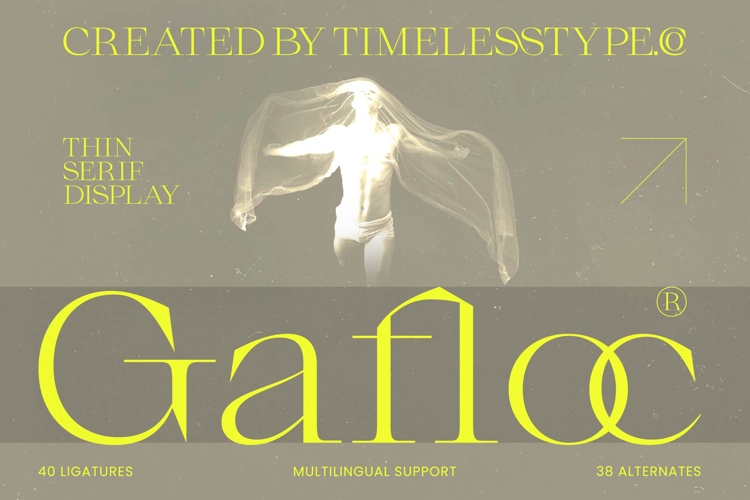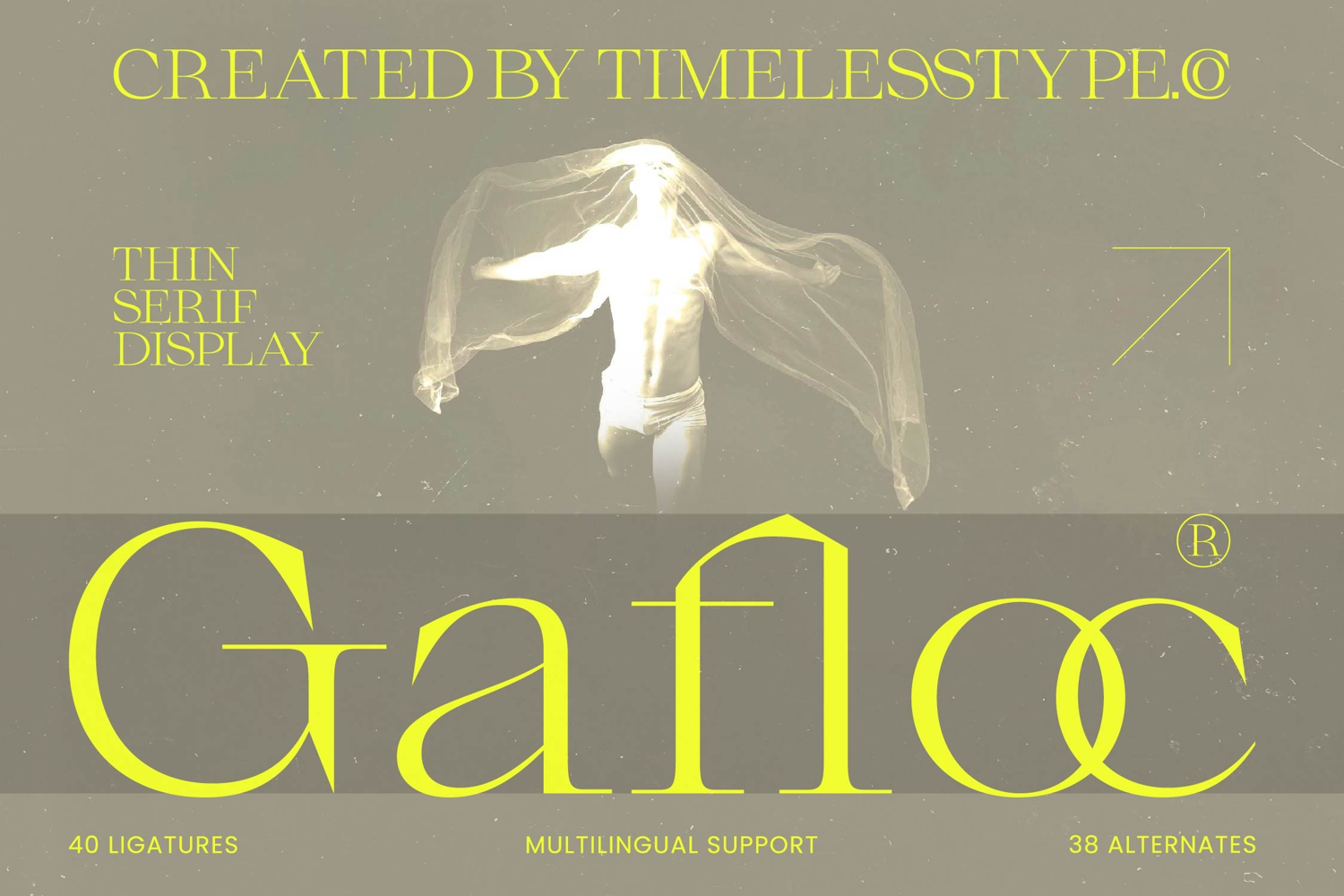
Gafloc Thin Serif Display
Gafloc – Thin Serif Display
Elevate your creative vision with a typeface that embodies pure sophistication and contemporary flair. Gafloc – Thin Serif Display is a masterclass in high-contrast design, offering razor-thin serifs that command attention while maintaining an air of delicate grace. Its sophisticated aesthetics make it an essential asset for designers seeking to convey prestige and modern elegance in every headline or artistic composition.
Precision-engineered for high-end visual communication, this typeface excels in the most demanding creative environments. Gafloc – Thin Serif Display is perfect for luxury branding, high-fashion editorial design, and premium packaging where first impressions are paramount. Whether utilized for minimalist logos or sprawling magazine layouts, it ensures your project radiates a high-end professional finish that resonates with an upscale audience.